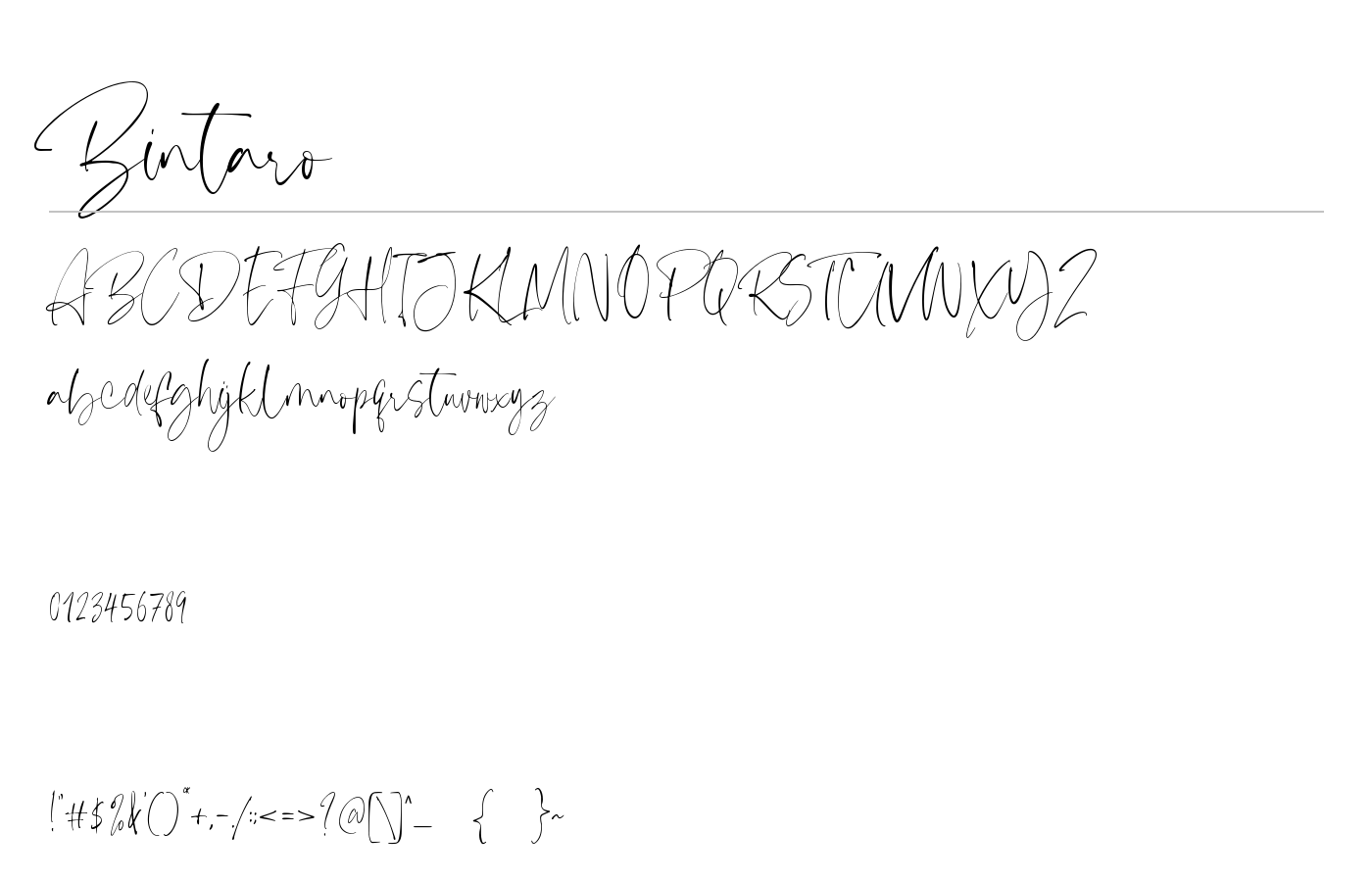
Bintaro is a delicate, handwritten script font characterized by its thin, flowing strokes and elegant, slightly whimsical style. Its tall, narrow letterforms and graceful curves make it perfect for adding a personal, artistic touch to invitations, branding, and creative projects that call for a refined yet approachable look. This font works best in headlines, logos, and decorative text where its unique charm can truly stand out.
Bintaro Font